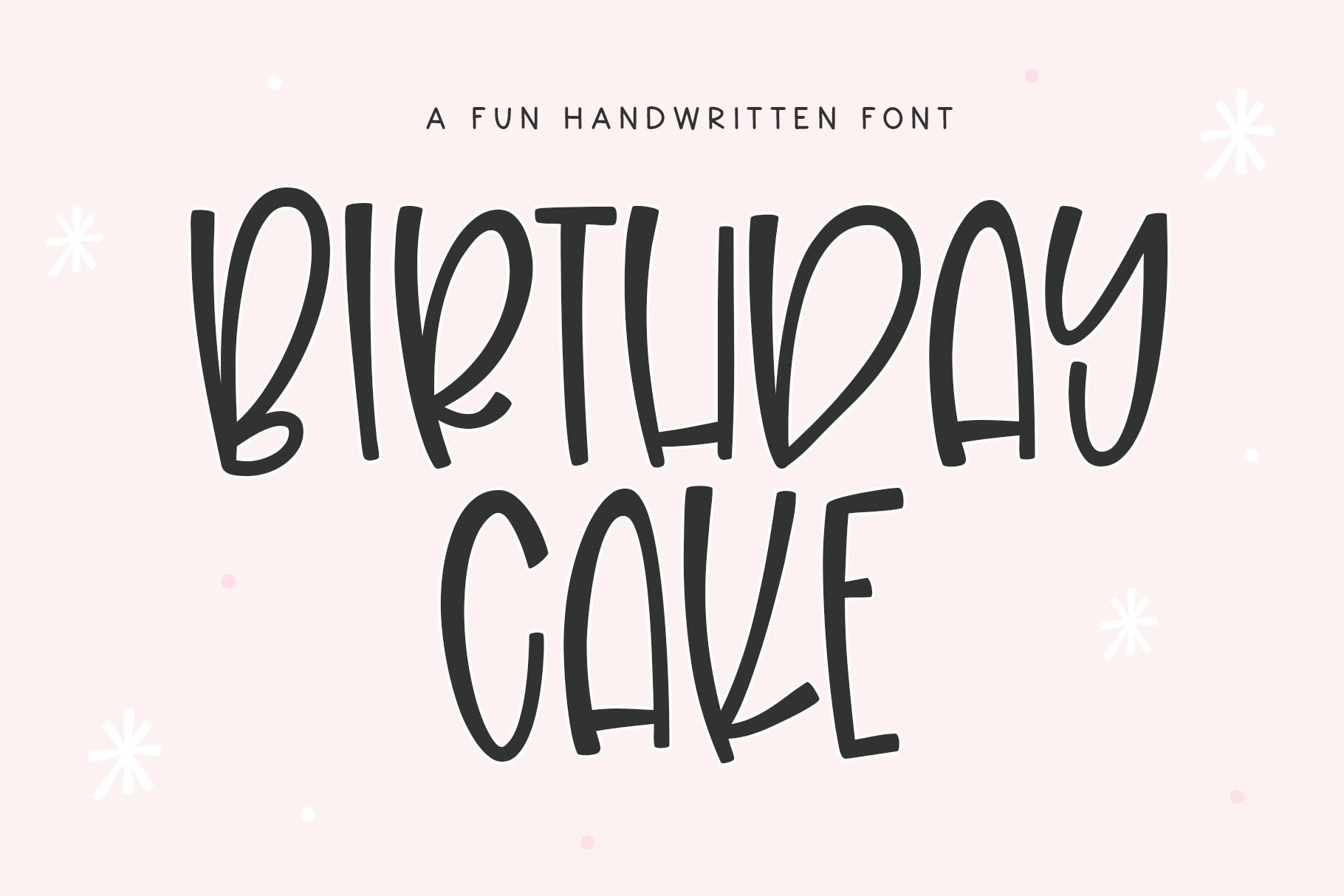
Birthday Cake - Fun Handwritten Font
Birthday Cake is a quirky and fun font. It is an ALL CAPS display font.
This font is perfect for cricut projects, svg files, logos, signs, cards, stickers and more!